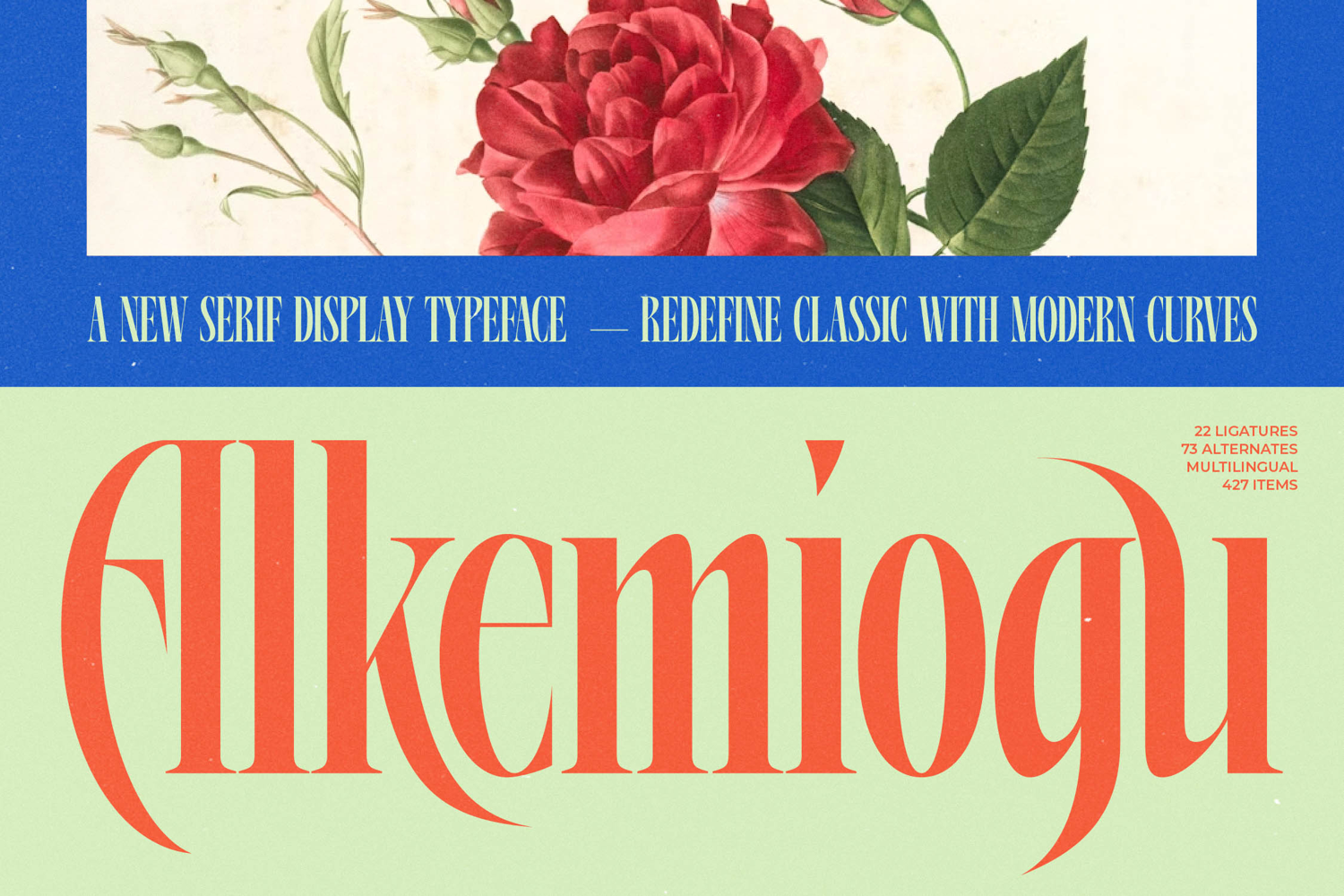
Alkemiogu - A New Serif Display Typeface
Redefine classic elegance with a dramatic modern flair. Alkemiogu - A New Serif Display Typeface is a captivating display font built on the foundation of traditional serifs but elevated by exaggerated curves and highly stylized terminals. Its high-contrast vertical stress commands attention, making it the undeniable focal point of any design. This typeface rejects subtlety, favoring a bold, memorable presence that resonates with vintage sophistication and contemporary design rigor.
Unlock unparalleled creative freedom with robust OpenType features. Equipped with 22 custom ligatures and 73 stylistic alternates, Alkemiogu - A New Serif Display Typeface offers designers deep typographic control. These features allow for fluid customization, enabling the creation of truly unique logotypes, bespoke monogram designs, and high-impact headlines that feel artisanal. This comprehensive character set ensures your brand identity maintains cohesion and bespoke character across all visual media.
Scale your vision to international horizons effortlessly. With its extensive multilingual support, Alkemiogu - A New Serif Display Typeface adapts seamlessly across global markets, making it incredibly versatile for international projects. This global adaptability ensures that whether you are designing in English, Spanish, or a host of other languages, the font maintains its consistent elegance and typographic integrity, providing a reliable foundation for worldwide campaigns and maximizing your design reach.
Elevate your brand with unmistakable luxury appeal. Alkemiogu - A New Serif Display Typeface is perfect for projects requiring a sense of opulence and high design value. Its dramatic weight and decorative flair make it the ideal choice for luxury branding, exclusive editorial headlines, premium cosmetic packaging, and high-fashion advertisements where drama and sophistication are paramount. Invest in this typeface to ensure your visual assets communicate immediate prestige and achieve unforgettable brand recall.